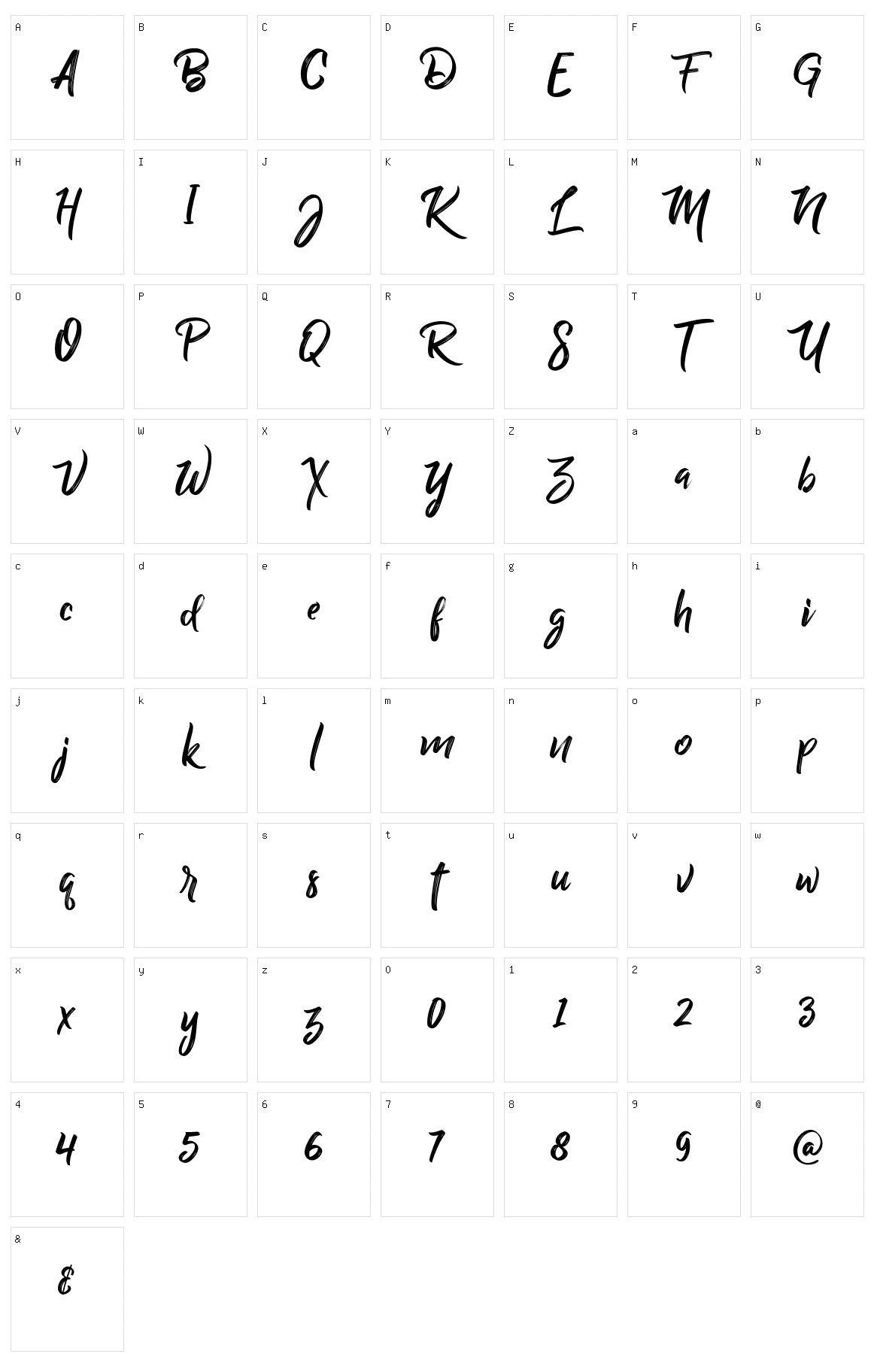
Introducing Billy Ohio Typeface which has a fast dry brush style. So it looks natural like a handmade. This font is best used for your design project that has the concept of fun, brave and sporty. Can also be applied to the design of a logotype, header website, make some lettering a quote, t-shirt design etc.
Billy Ohio has two font styles are similar but different, namely is Billy Ohio Dua but that you also get a Billy Ohio Swash of dry brush formatted like a using font.
Billy Ohio Typeface deserve to be one of your fonts collections, because it is unique and has many options of alternative glyphs.